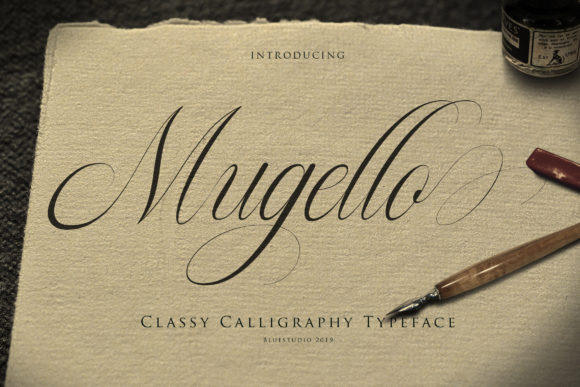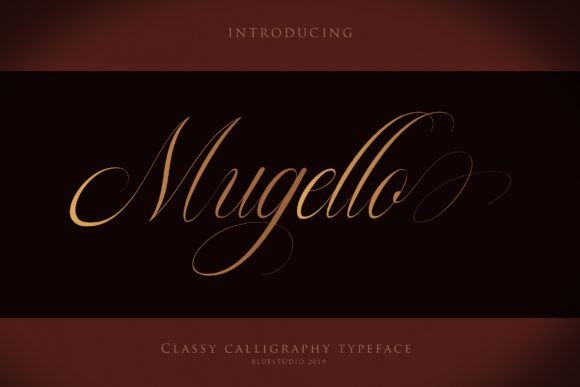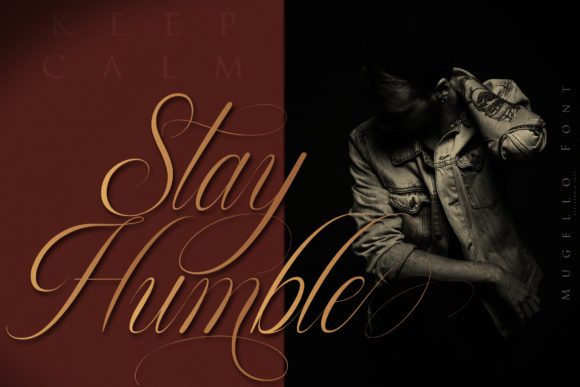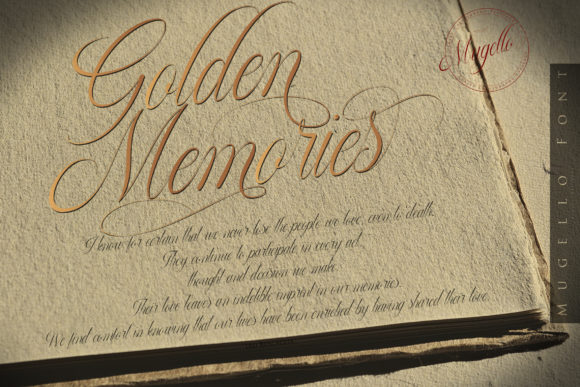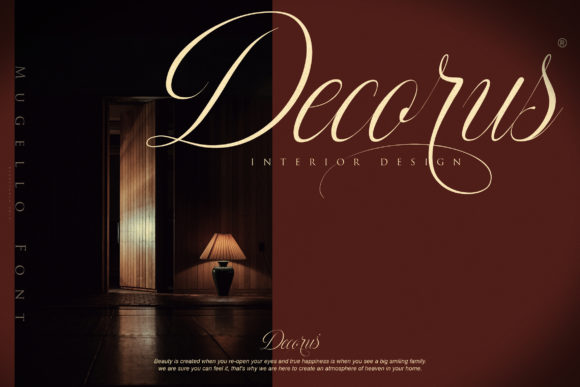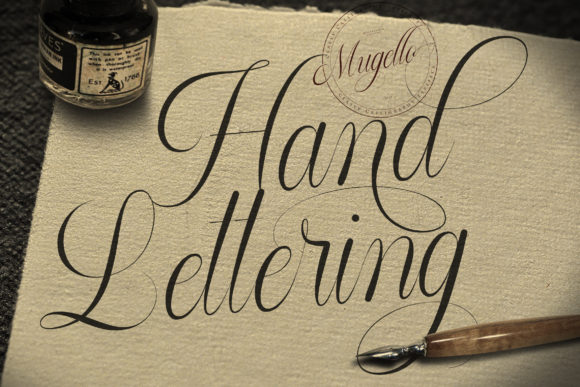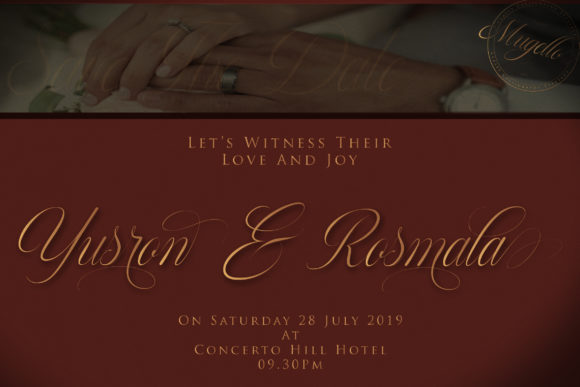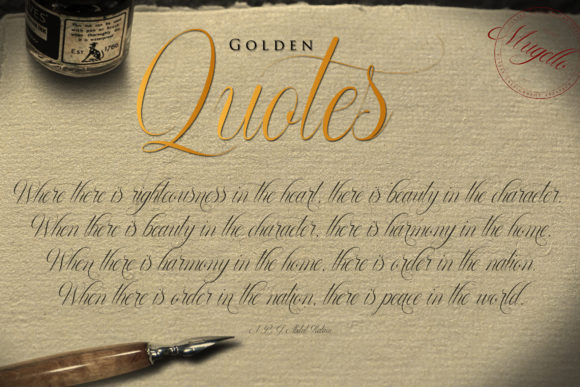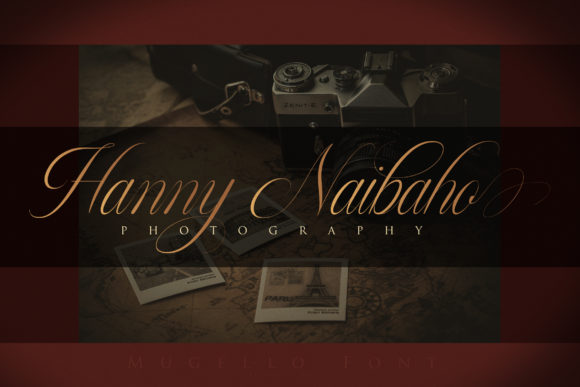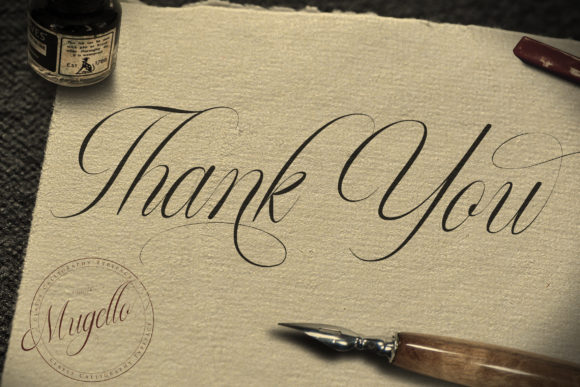
Mugello Font
About Mugello Font
Inspired by classic calligraphy, Mugello is a stunning handwritten font. It will effortlessly elevate any design project!